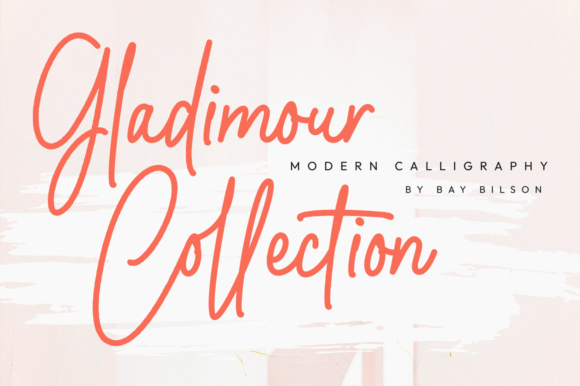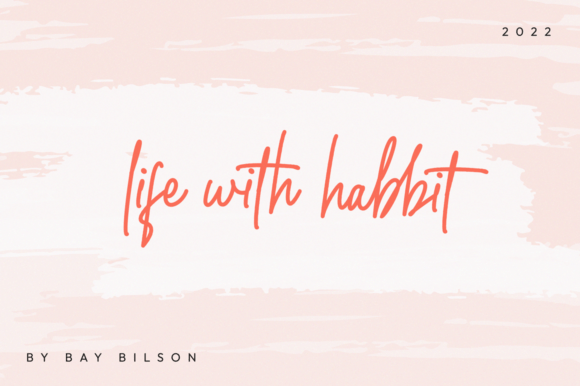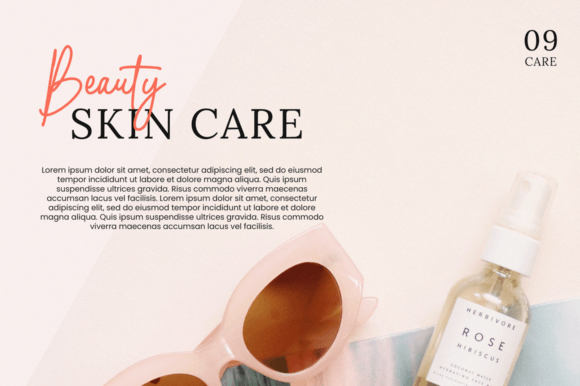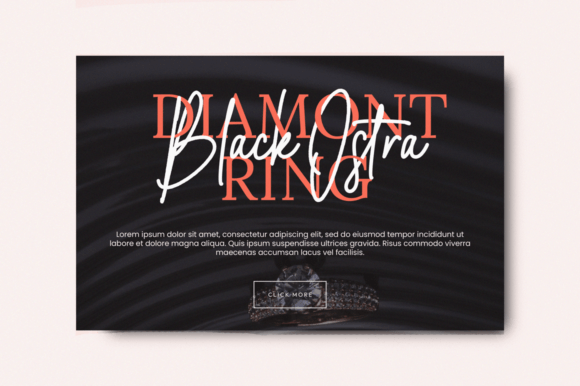
Gladimour Font: Elegant Script for Wedding Invitations & Logo Design
About the Gladimour Font
Step up your design game with Gladimour Font, a font that exudes confidence and style. Gladimour feels equally charming and elegant. It looks stunning on wedding invitations, thank you cards, quotes, greeting cards, logos, business cards, and every other design which needs a handwritten touch. It is also PUA encoded which means you can access all of the glyphs and ligatures with ease!
Gladimour’s elegant, handwritten style is ideal for branding projects requiring a touch of sophistication, particularly logos, stationery, and short-form marketing materials like social media posts or packaging. It excels in headlines and short text blocks where its charm can shine, but its intricate detail makes it less suitable for body text or UI elements.
For optimal impact, pair Gladimour with a clean sans-serif like Lato or Open Sans for a contemporary feel, or a classic serif like Garamond or Playfair Display for a more traditional aesthetic. A simple geometric sans-serif would also provide a strong contrast. Avoid pairing it with other highly decorative or script fonts, as this might create visual clutter.
Gladimour projects an overall feeling of refined playfulness; sophisticated yet approachable. It’s well-suited for brands targeting a female demographic or those wishing to convey a sense of luxury and handcrafted quality.
Gladimour Font Usage Examples
Gladimour Font Example